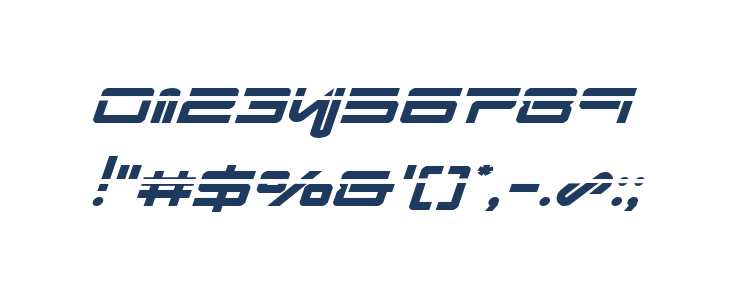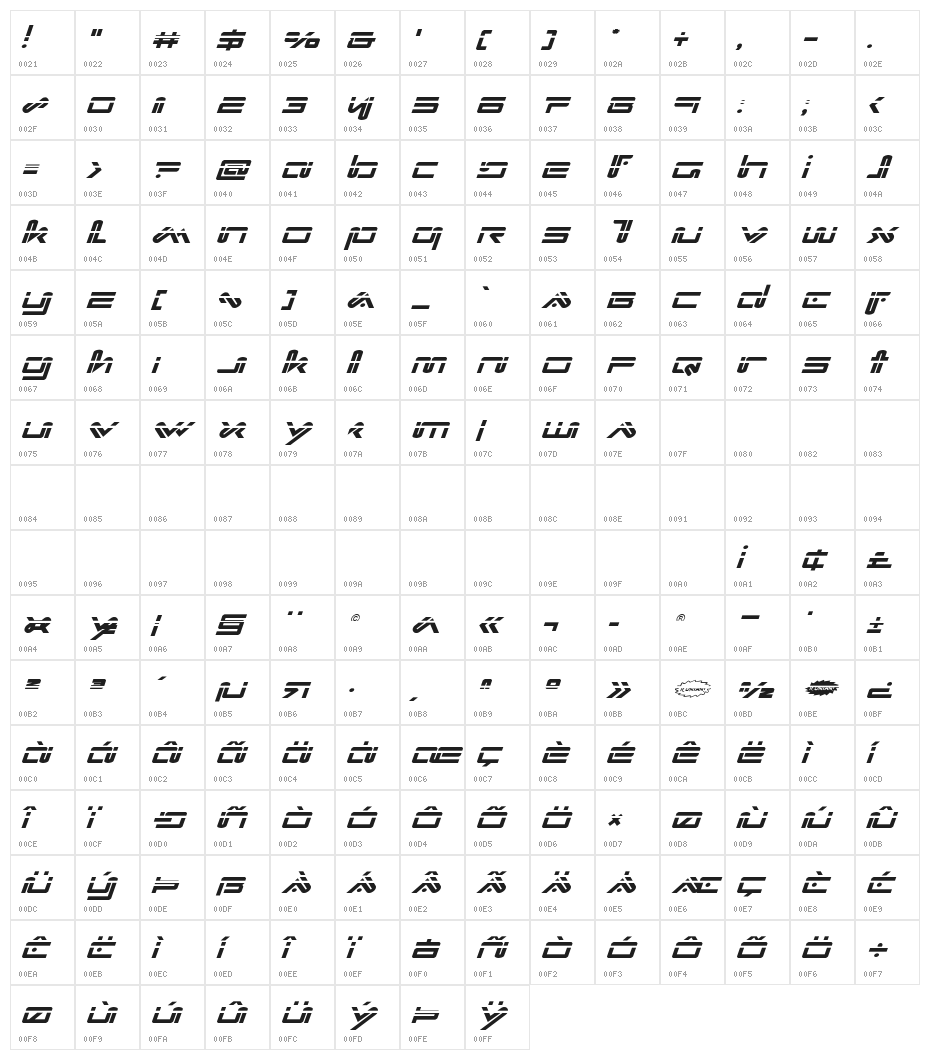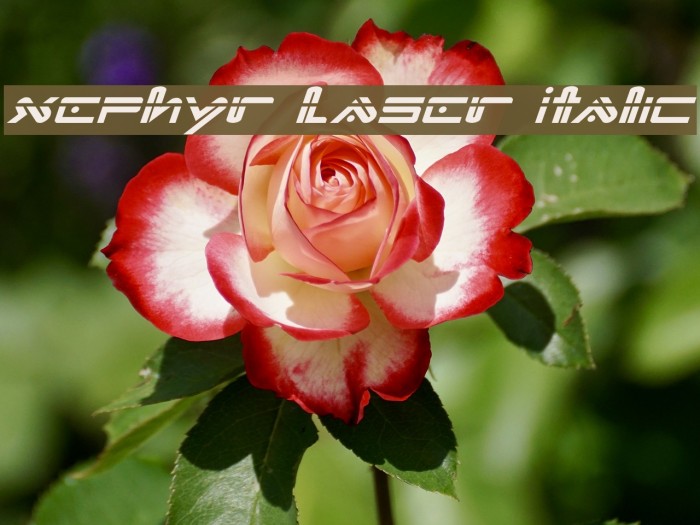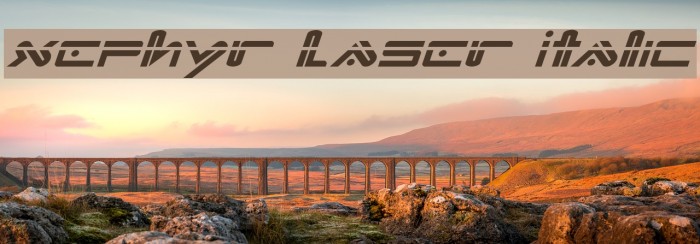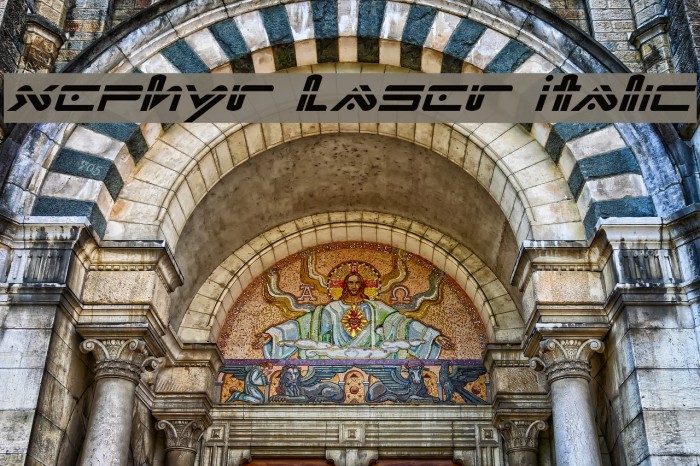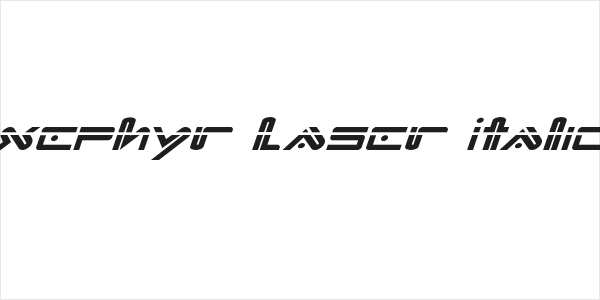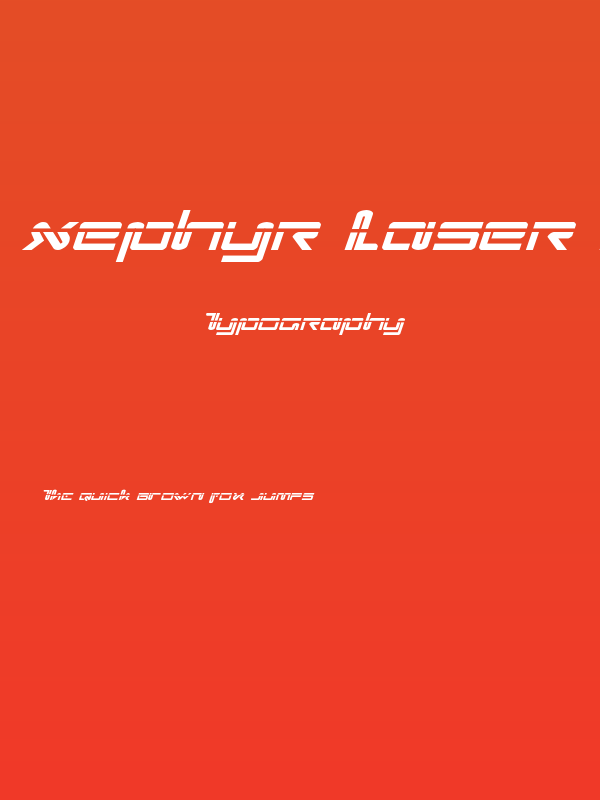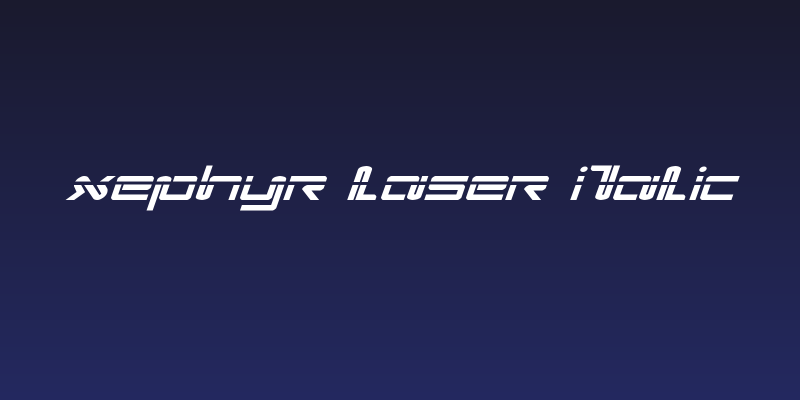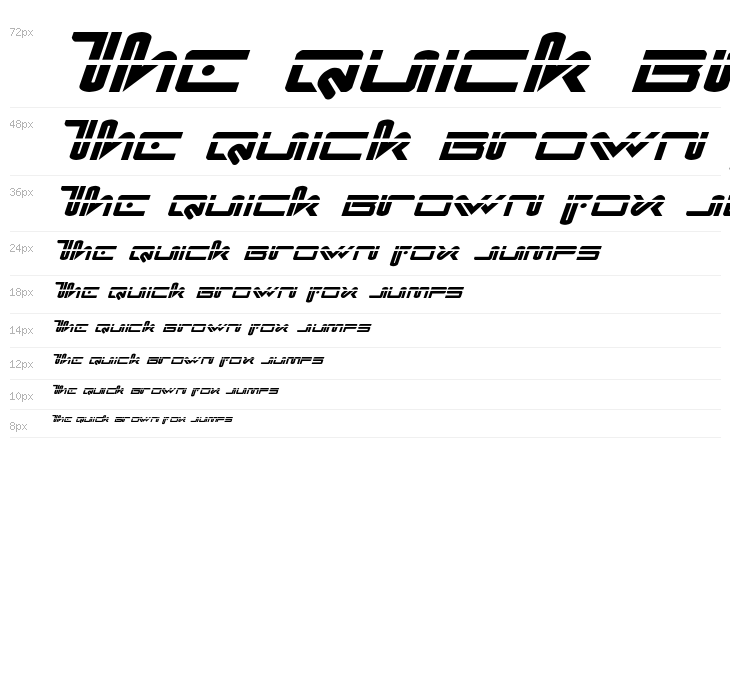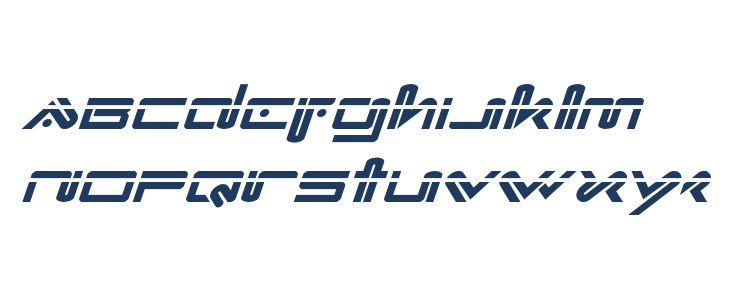
Xephyr Laser Italic Font
Xephyr Laser Italic Description
This font features a futuristic and angular design, characterized by sharp edges and a sleek, italicized form. The letters are distinctly geometric, with a consistent slant that adds a sense of motion and speed. The uppercase and lowercase letters maintain a uniform style, with unique cuts and lines that create a dynamic visual effect. Numbers and special characters follow the same design principles, ensuring a cohesive look across all elements. The font's bold appearance and high contrast between thick and thin strokes make it stand out, ideal for attention-grabbing designs.
| Proposed Projects | Ideal for sci-fi themed projects, technology branding, video game titles, and futuristic posters. |